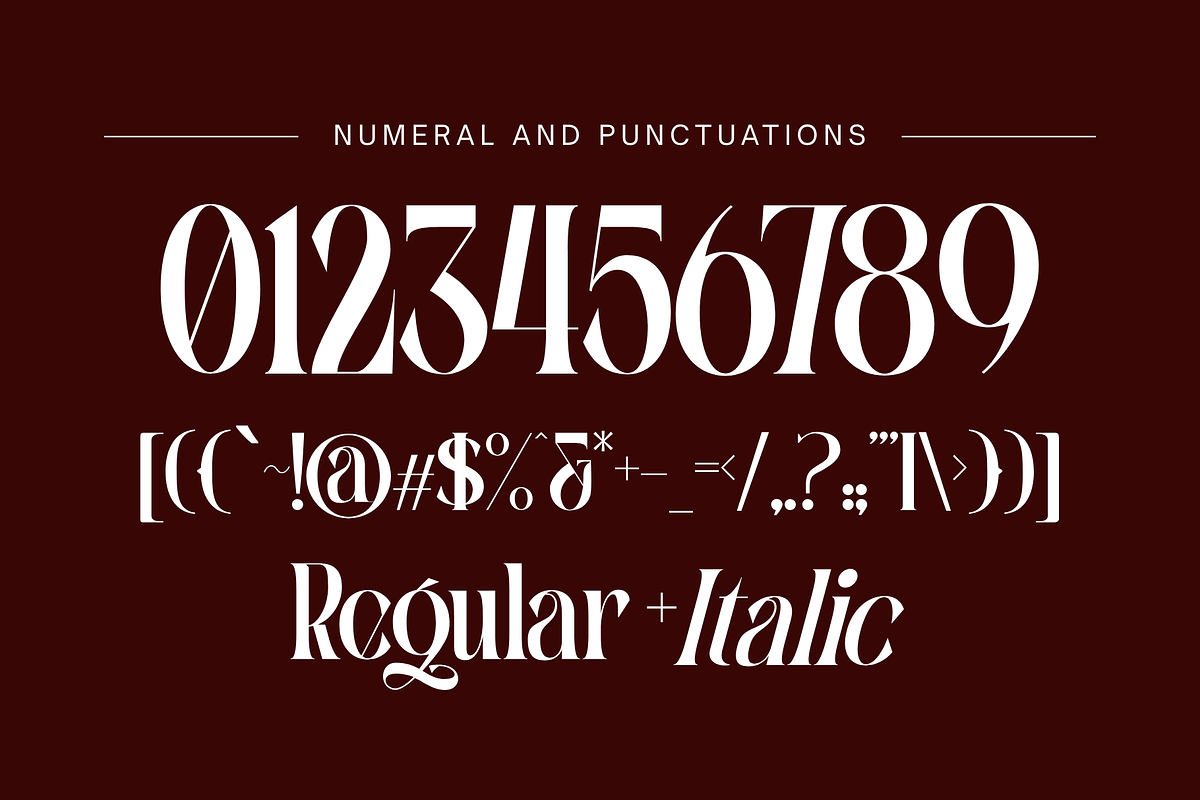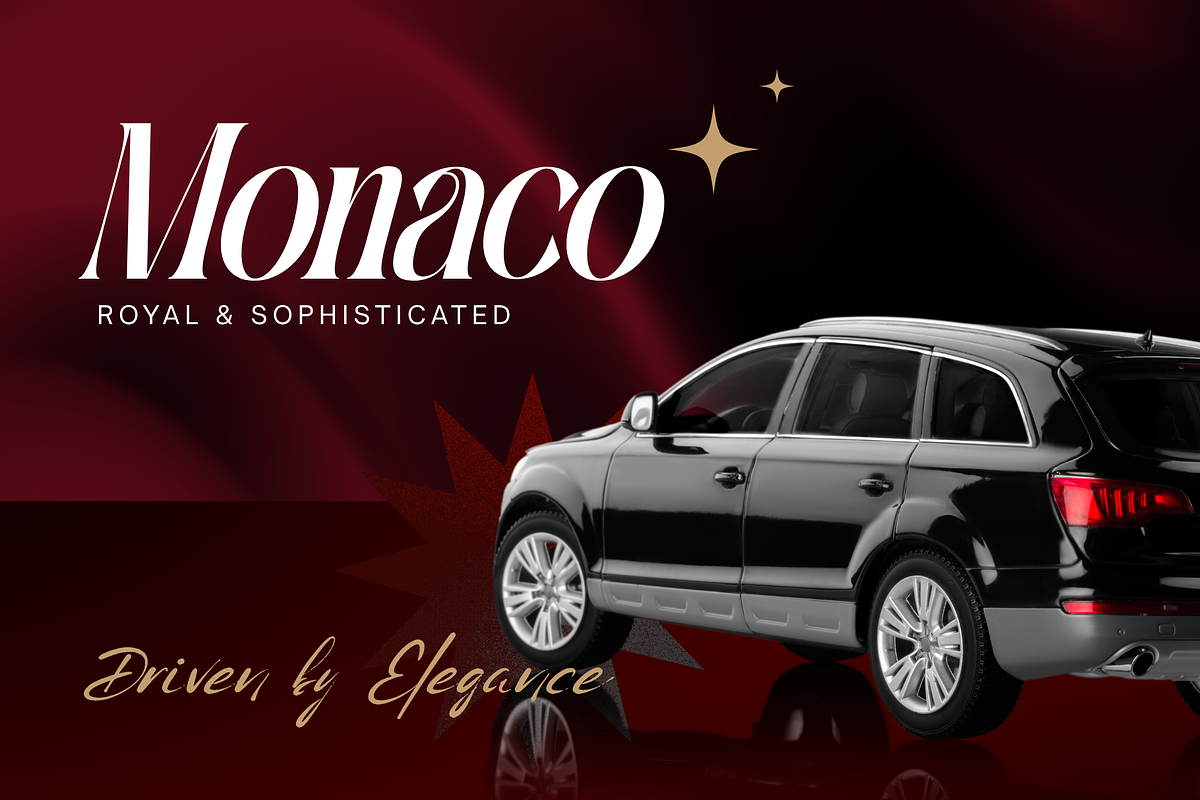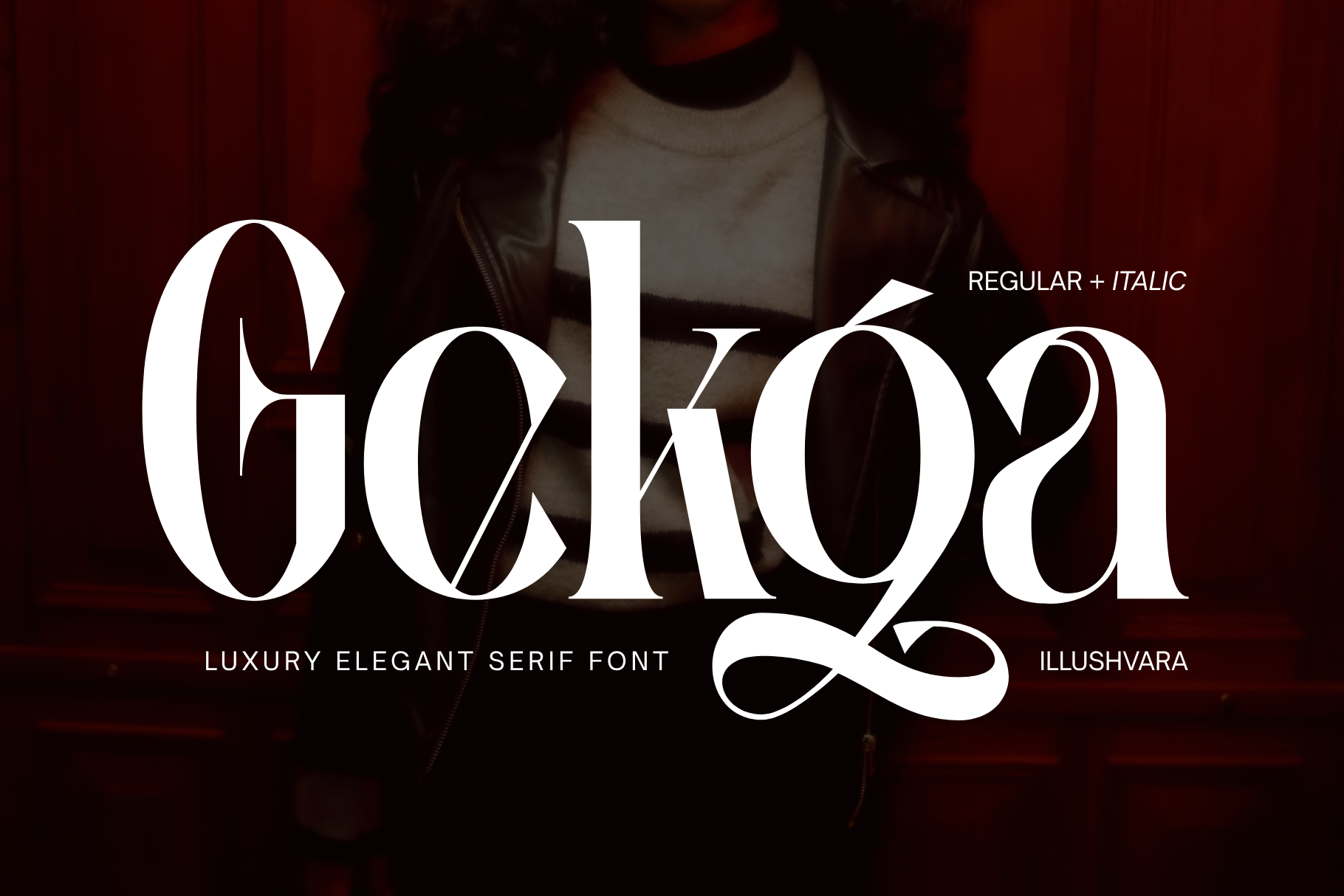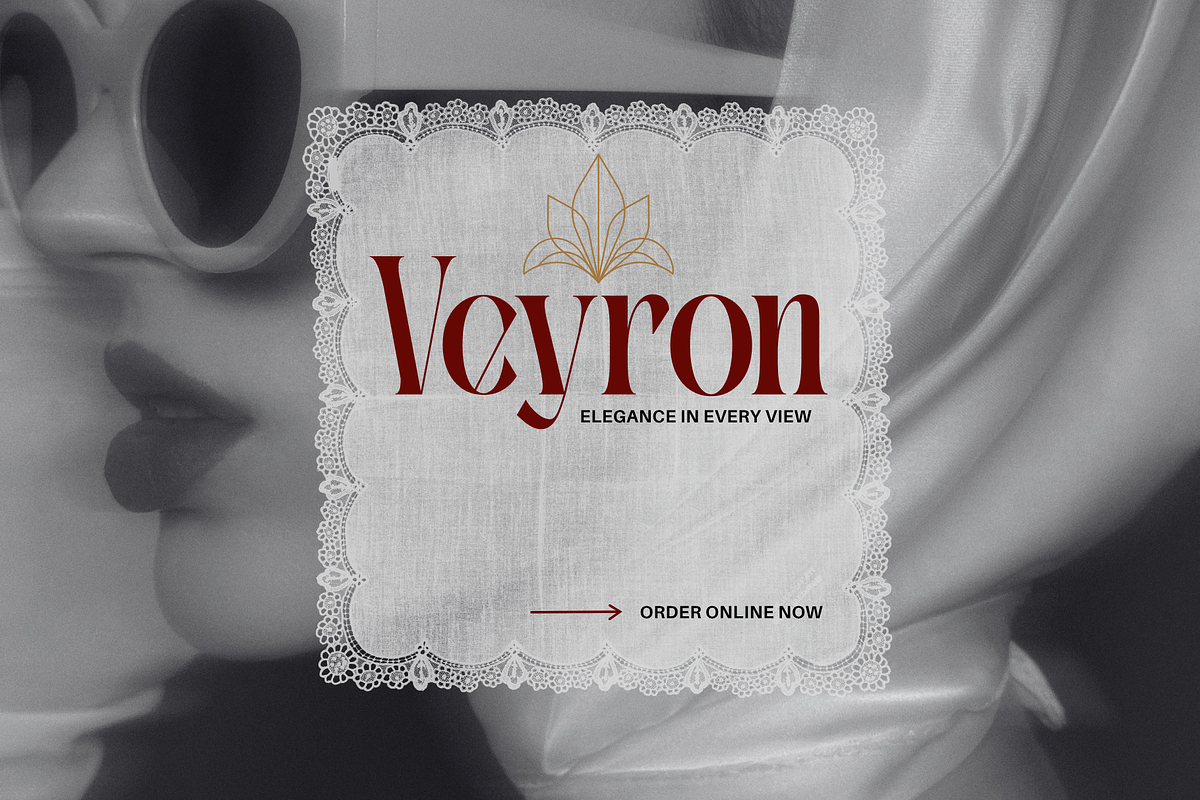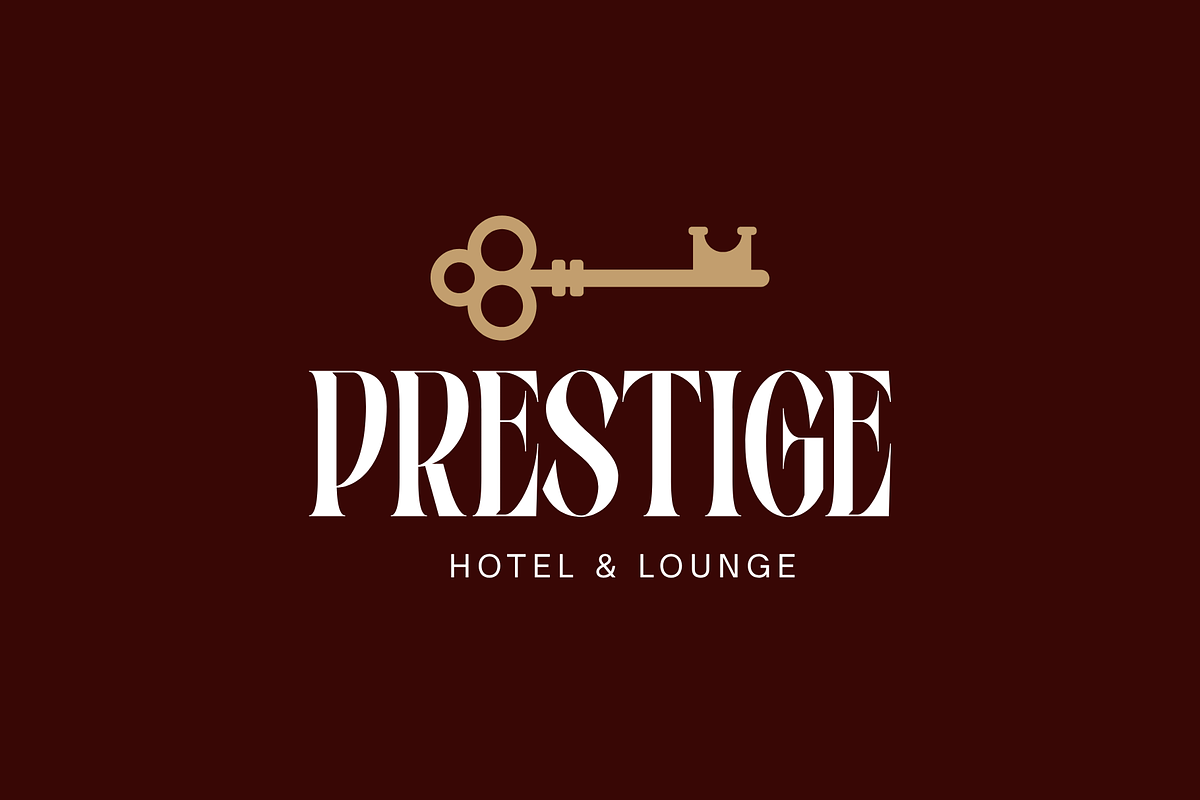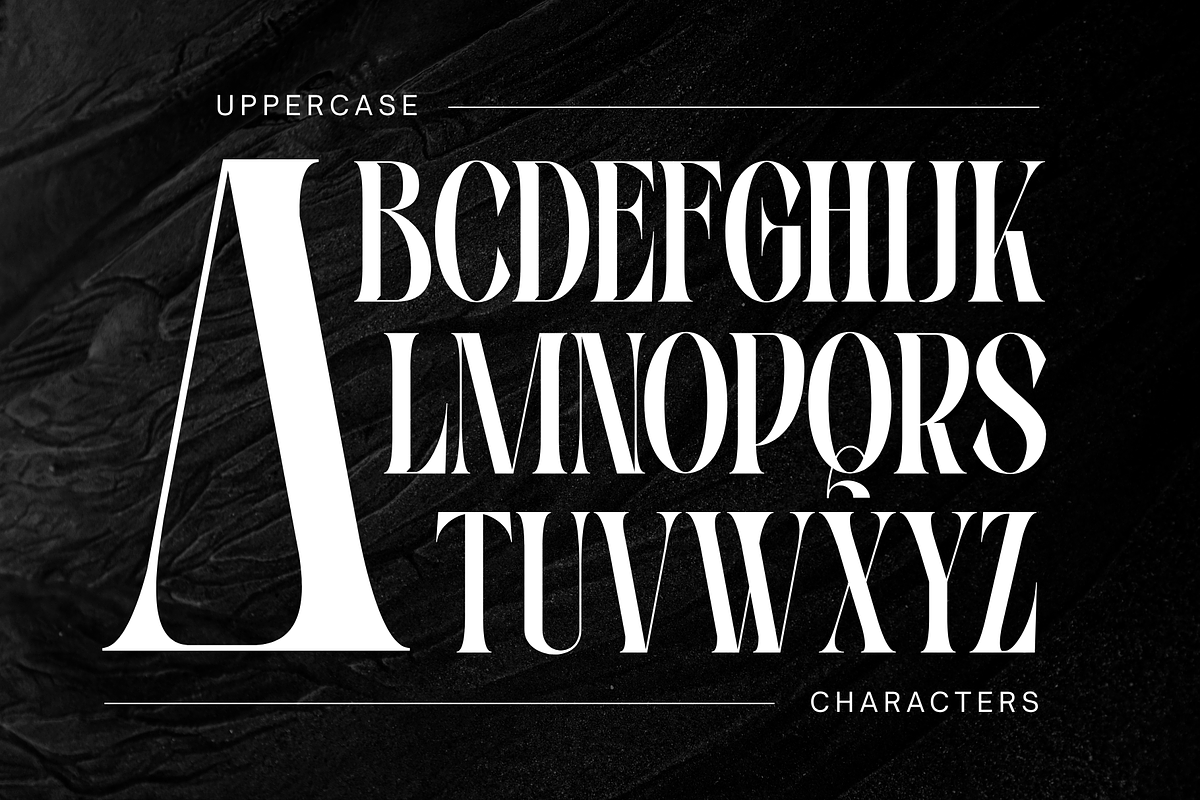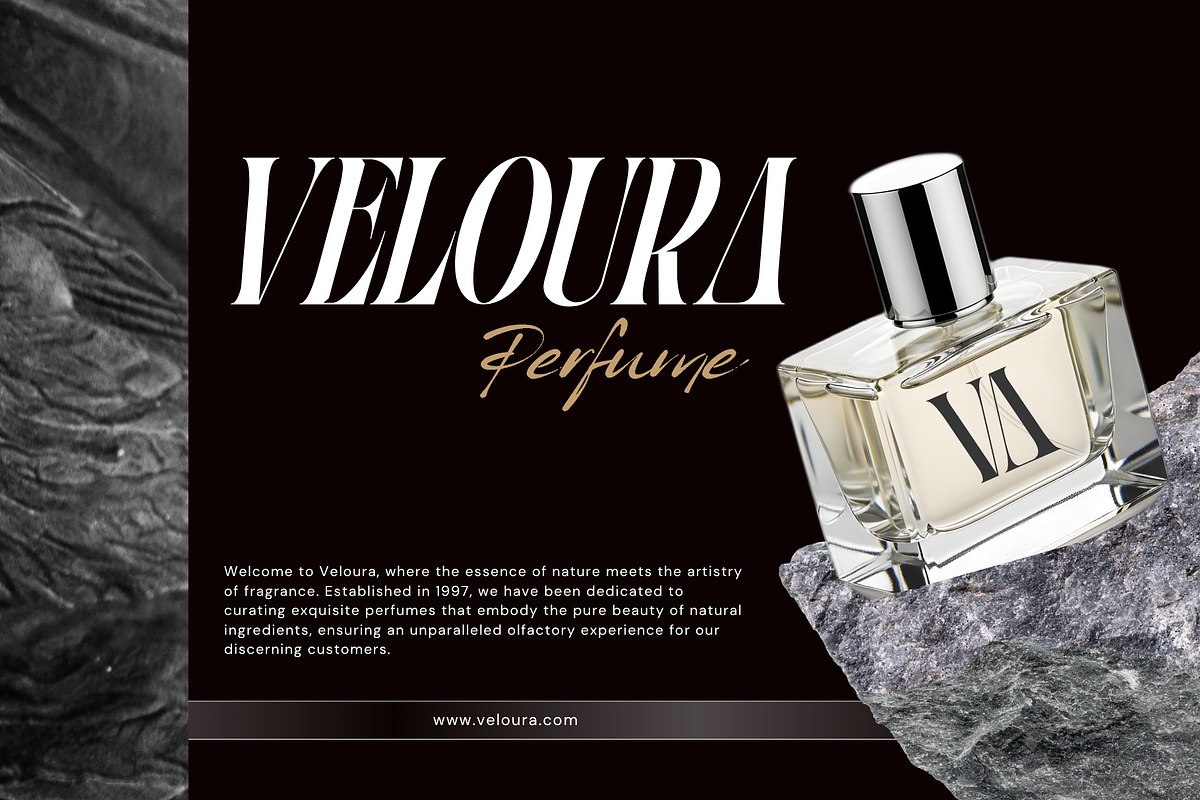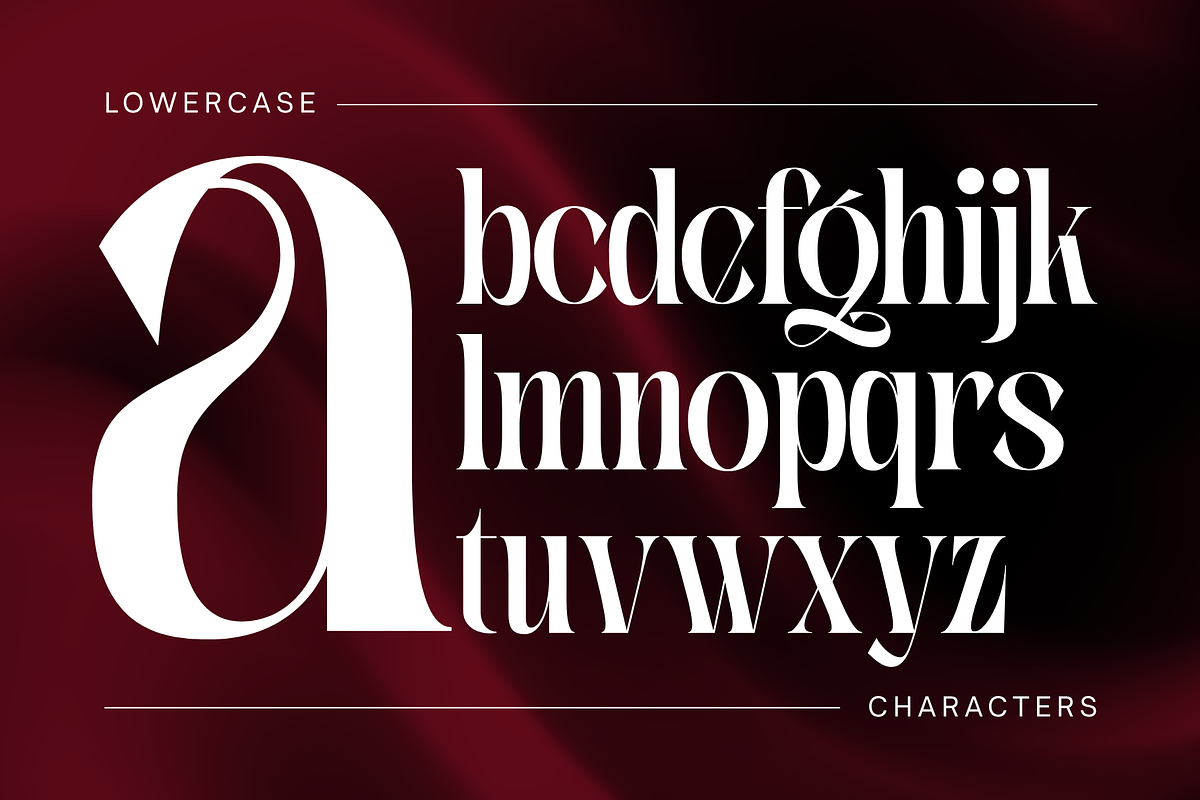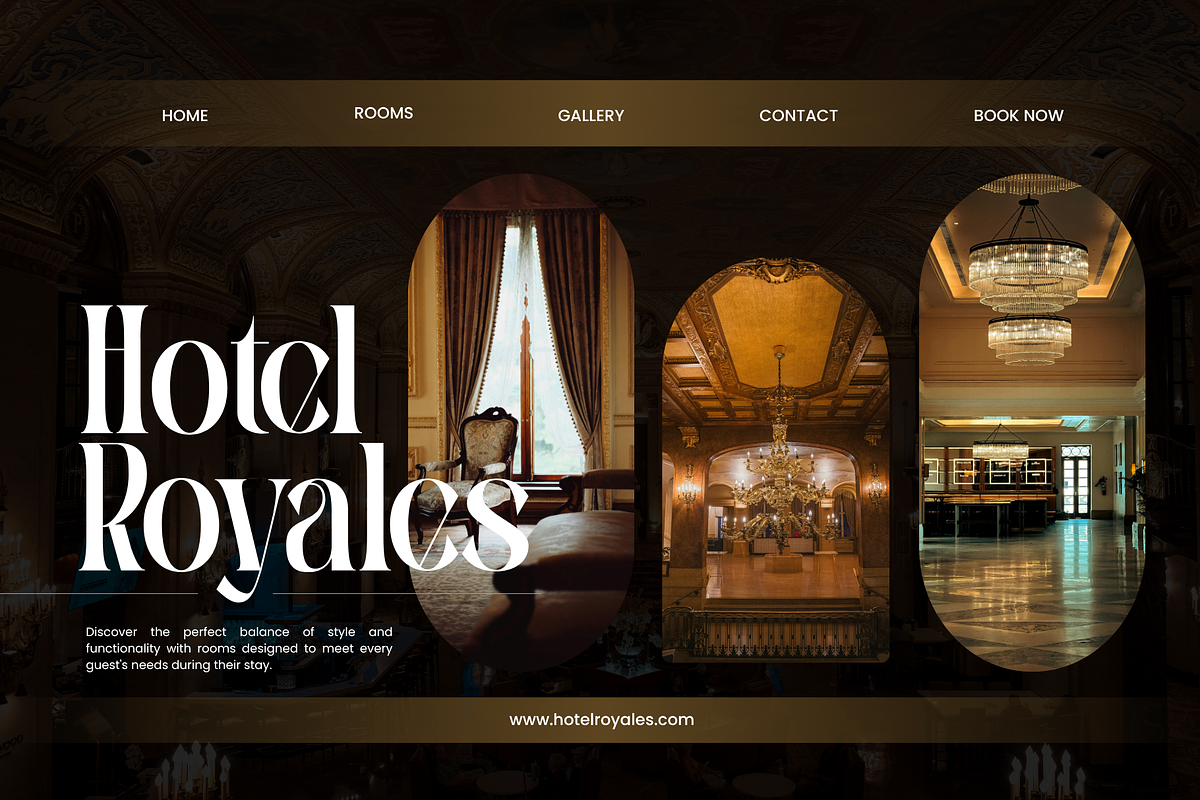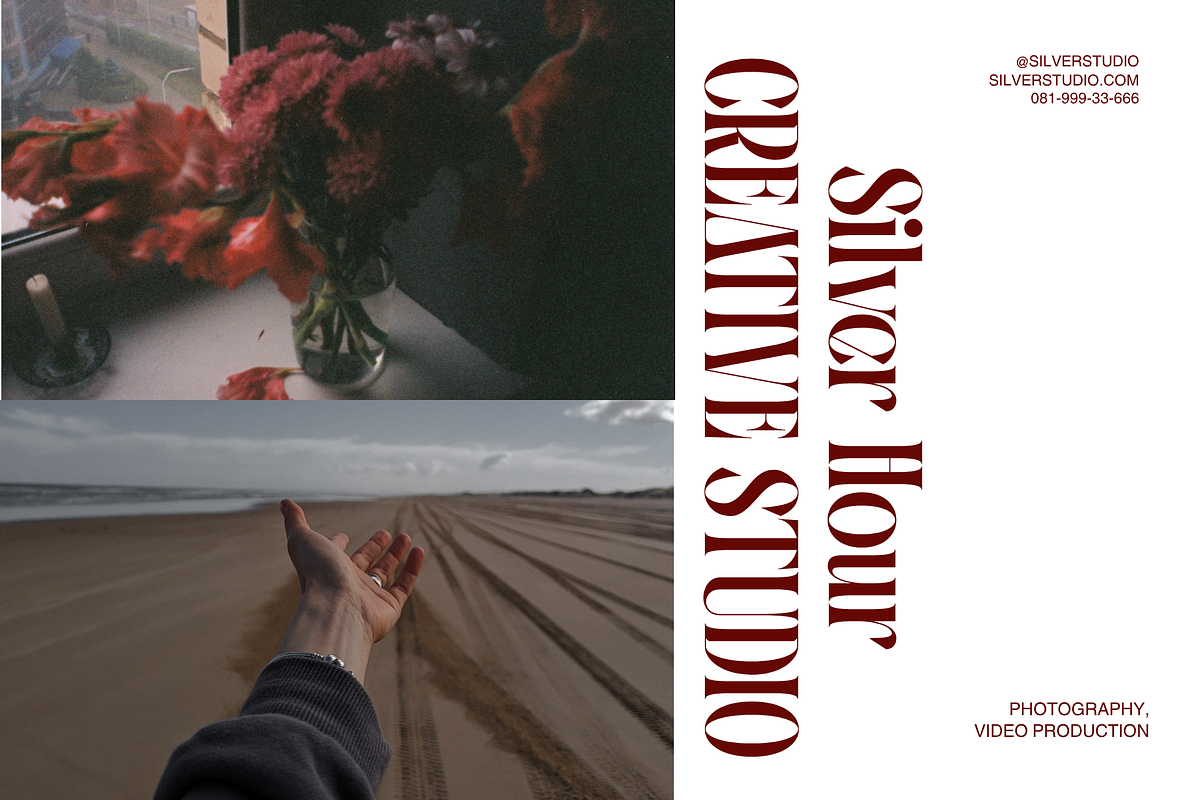
Gekga - Luxury Elegant Font
Gekga is a luxurious and elegant serif font designed to bring sophistication, timeless beauty, and a refined editorial feel to your projects. Featuring Regular and Italic styles, Gekga offers graceful letterforms and versatile character for both modern and classic designs. Perfect for luxury branding, fashion magazines, logos, perfume packaging, beauty products, wedding invitations, editorial layouts, and premium stationery. Gekga adds a polished, high-end touch to every design.